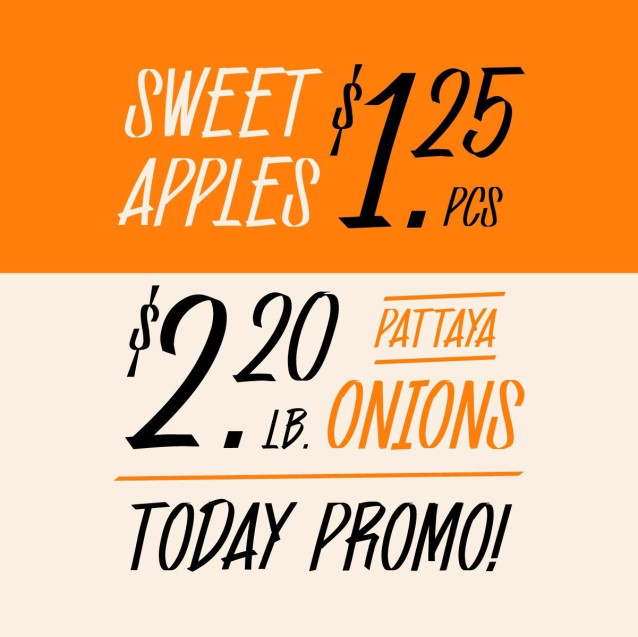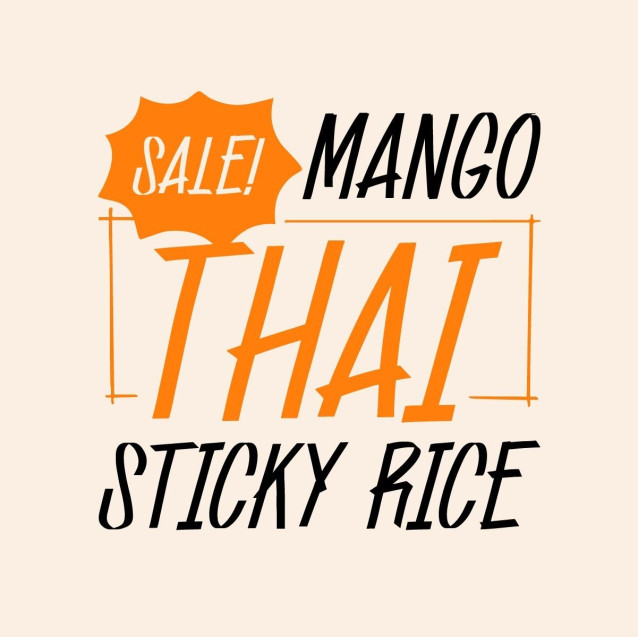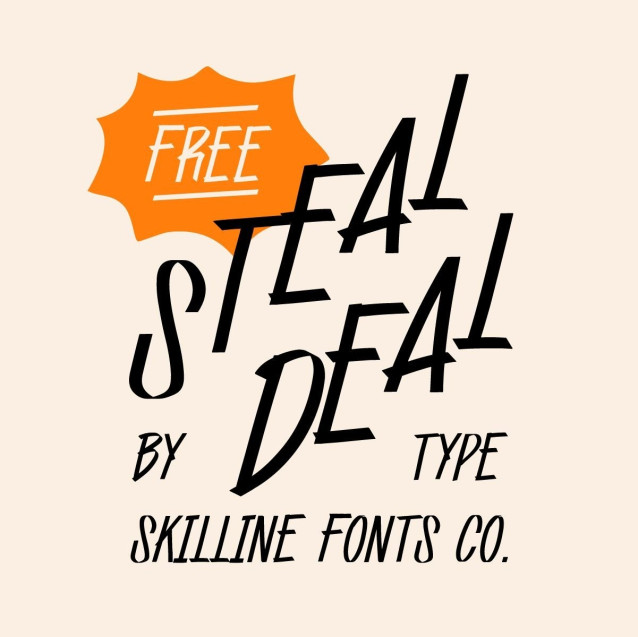
SFC Steal Deal Font Inspired by discount fonts you often see in real-life marketplaces.This is the kind of typeface you probably spot every day, without even realizing it.